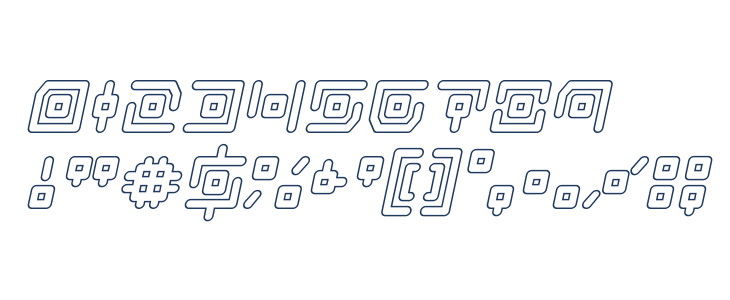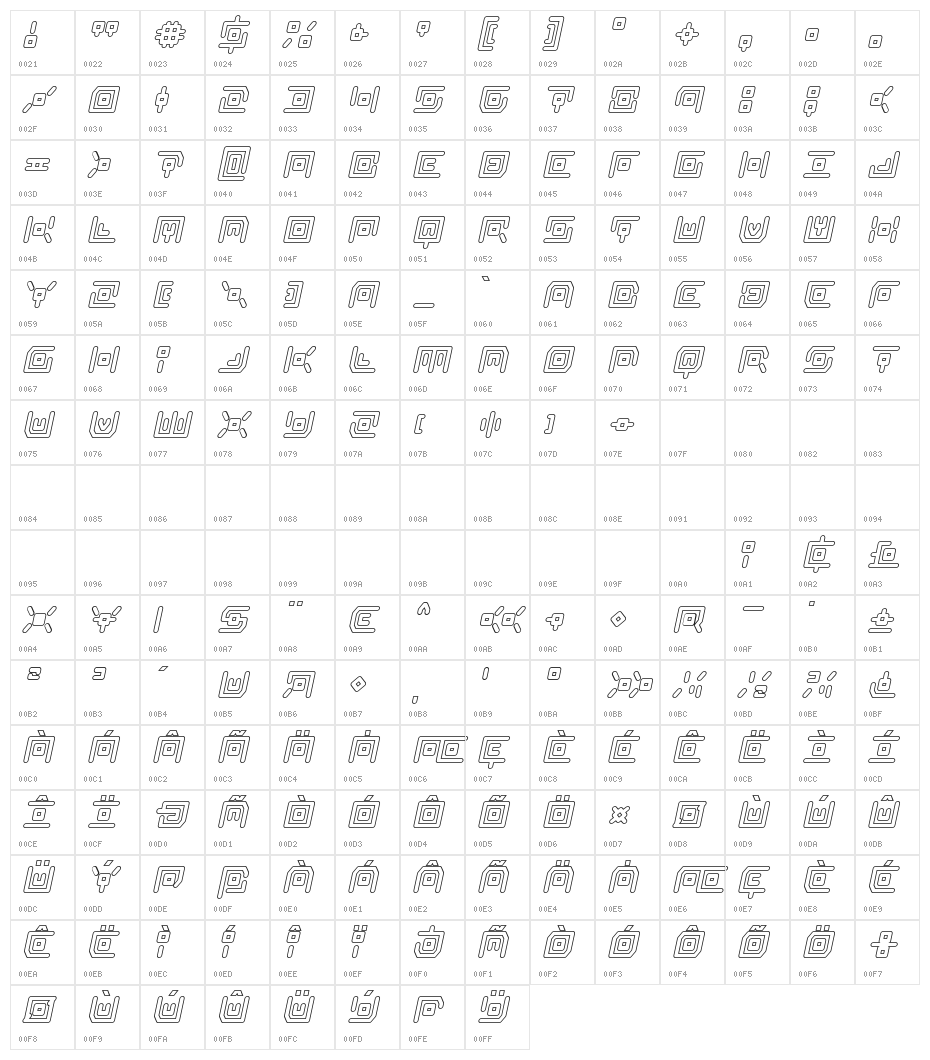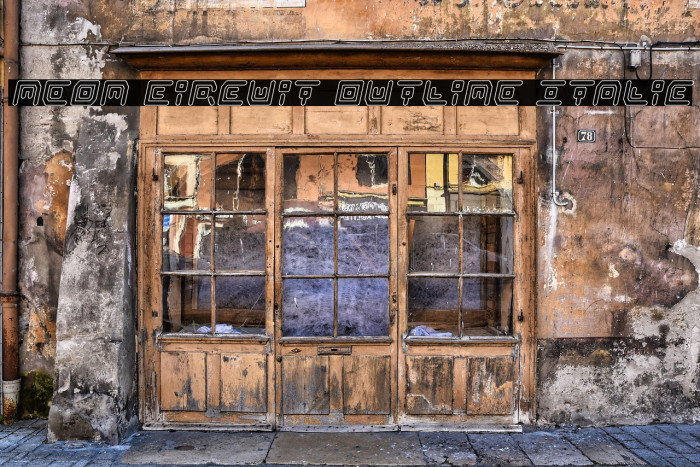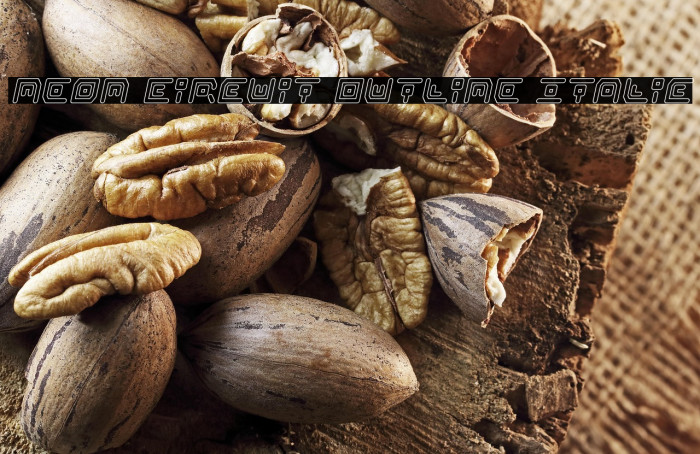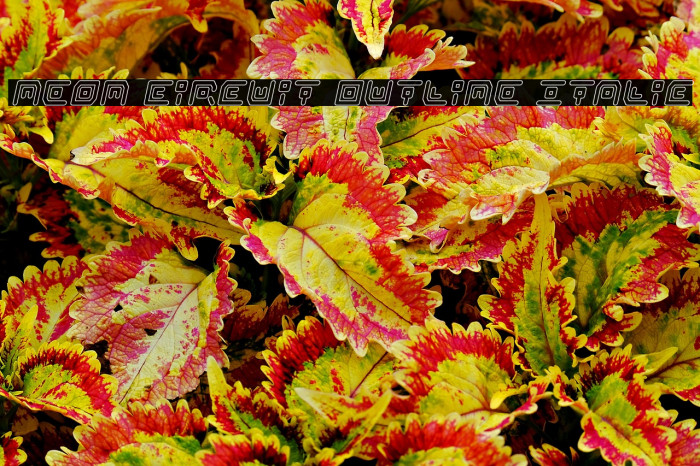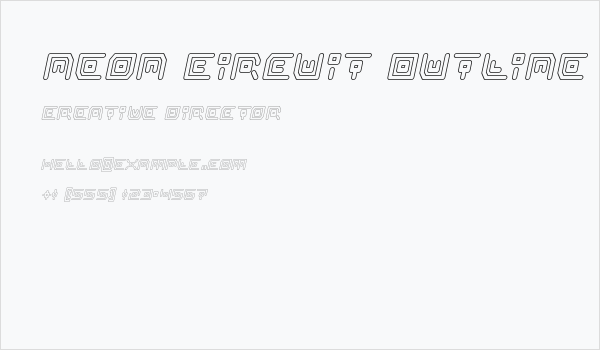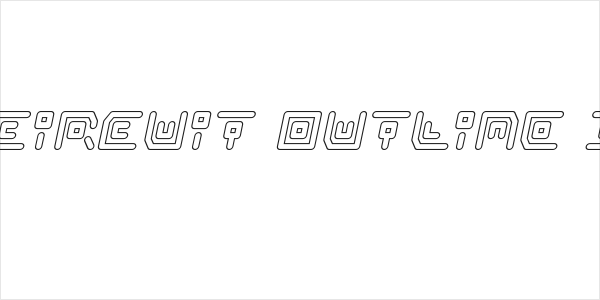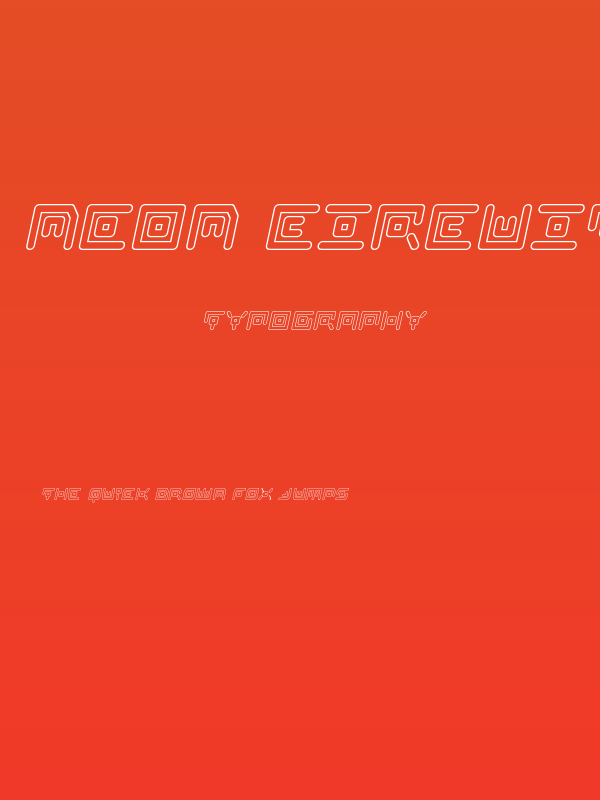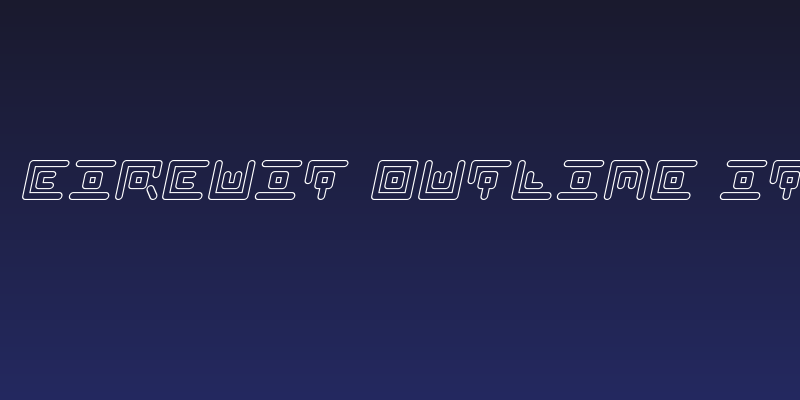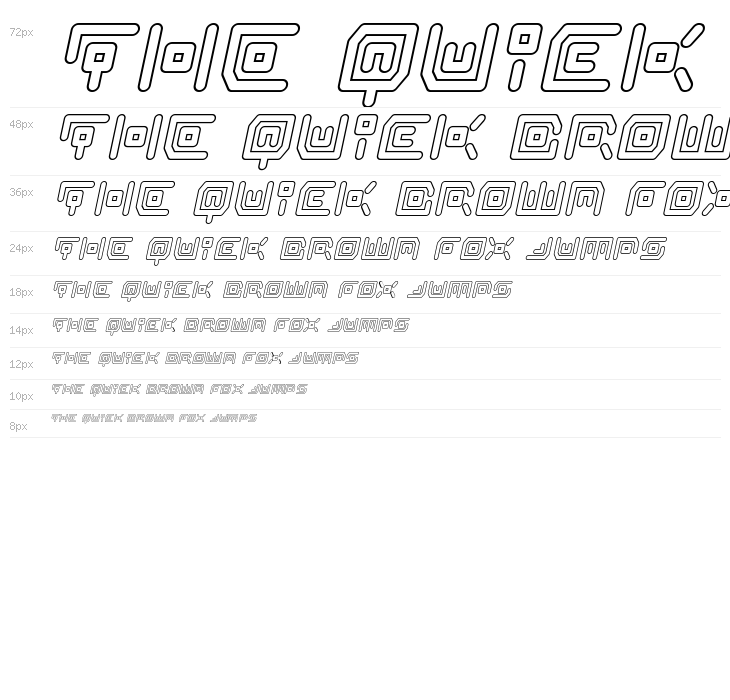
Neon Circuit Outline Italic Font
Neon Circuit Outline Italic Description
This font features a futuristic and digital aesthetic, characterized by its circuit-like outline design. Each character is composed of a series of interconnected lines and curves, creating a sense of movement and energy. The italic slant adds a dynamic and forward-thinking feel, making it ideal for tech-related projects. The outline style gives it a lightweight appearance, while the geometric shapes maintain a structured and organized look. This font is perfect for projects that require a modern and innovative touch, such as technology branding, digital art, or sci-fi themed designs.
| Use Case | Logos, Headlines |
| Proposed Projects | Ideal for technology branding, digital art, sci-fi themes, and innovative design projects. |